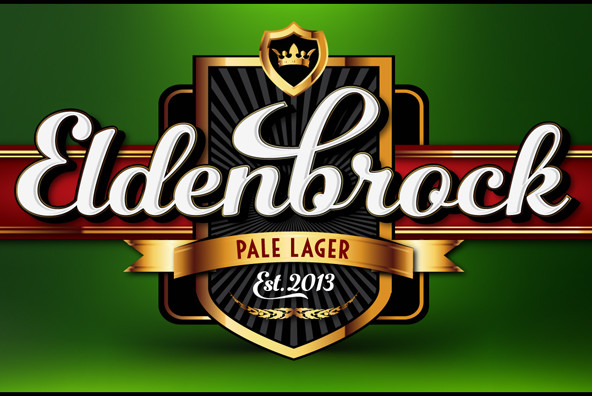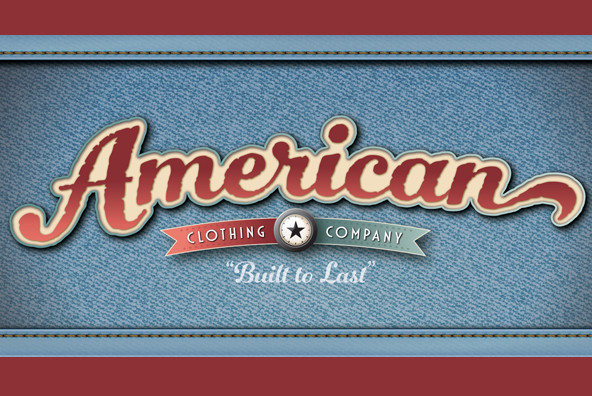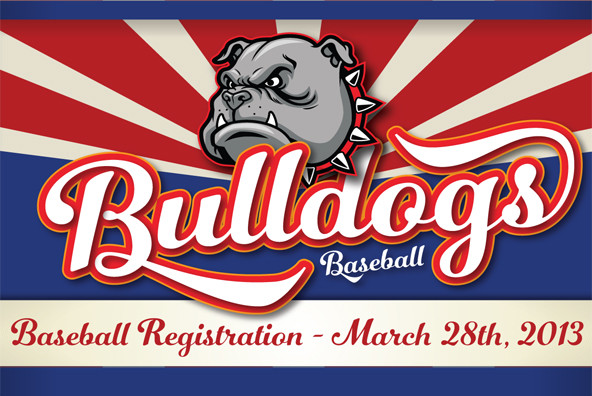
Number Five is pure Americana, suitable for titling, display, logo, signage, and editorial work. Its two versions, Smooth and Rough, are constructed similarly, yet imbued with distinct feelings and uses.
Number Five Number Five
Number Five is pure Americana, suitable for titling, display, logo, signage, and editorial work. Its two versions, Smooth and Rough, are constructed similarly, yet imbued with distinct feelings and uses.
The 1940s and 1950s in America have taken on a mythology of their own, imagined by some as an idyllic time when the daily life, dreams, and sensibilities of a nation were stable, solid, unchanging. Yet this was when the same mothers who sewed their children's names onto collars for summer camp using needle and thread and who picked berries at roadside fruit stands to lay up ruby and purple jams for the winter, also read books about scientific parenting, squeezed high-end appliances out of slim budgets, and dreamed of Jetson homes.
What we now treasure as “retro” was a time of powerful transformation, as the extraordinary beauty of the handmade past slipped slowly toward the outmoded, and as a nation we became restless for a manufactured perfection. How perfect, indeed, that we'd soon be watching as one while one of our own stepped onto the surface of the moon.
Number Five captures the moments before we moved into our Brave New World. The letters are subtly retro and just barely distressed, and are evocative of Betty Crocker cookbooks used by women in high heels and crisp aprons, signs painted on old barns along the highway, and slow summer days with Joltin' Joe Dimaggio (and his number 5 jersey) at bat. This was a time when modern machine-made was adored, yet handmade was the norm, and the functional hand-drawn still had a beauty all its own, whether or not we could still discern it.
My motivation in designing Number Five (which was named not for Joe but for my own jersey, my favorite number since childhood, my lucky charm), was to capture this time of Jim Beam, plaid Bermuda shorts, laundromat signs, and hometown storefronts beckoning with freshly painted sign painter's scripts. The human spirit still ruled in what we made, back in these days when Main Street, not Big Box stores, prevailed—and even when the edges of our goods were rough, the work spoke of warmth and a practiced hand.
The lettering is bold and dark, beautiful but not especially feminine or even sophisticated, a casual down-to-earth script. Like many of my fonts, the letters grew organically, possibly triggered by watching an old movie or remembering the cheers when I was a kickass Little League pitcher. I used pencil to construct them, then scanned and finessed them on the computer. Constructed faces are carefully crafted and demanding, they don't flow naturally from the pen or brush. Yet, designing the letters was hard work that came easily compared to others I've made; I drew the outlines on a single sheet of paper, which is unusual for me; perhaps the letters had a strong American identity running through them from the start and I simply followed them to completion. I intuited the direction I was headed: unpretentious, friendly, oddly familiar—as “retro” should be.
The two versions are kissin' cousins, lending themselves to different purposes and kindling a different feeling, as similar as they seem at first glance. Smooth is the slick version; I think of a pale, crisp, clean lager. Rough is the nut brown ale, or, taking it back in time, the neighborbood's hardware store sign, at the center of town.
Number 5 has 433 alternates, including a set of unconnected letters (the default set is all a connected script), and ten ornaments.